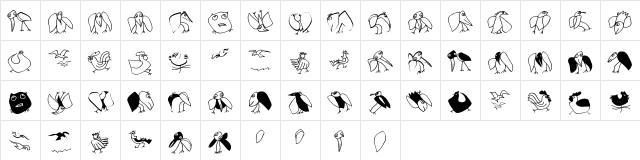
LateBirdsThree Regular
Design Context for LateBirdsThree Typeface
LateBirdsThree is a composed and adaptable typeface that performs quietly and consistently across a wide range of design contexts.